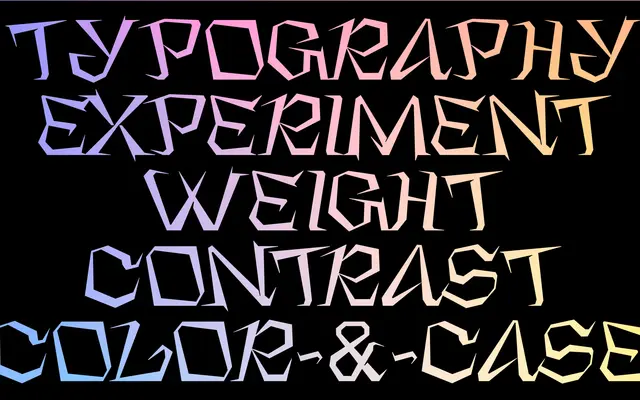
36DOPE
Power Type · Teguh Arief · 2023
An experimental display serif with unconventional construction, released by Teguh Arief in June 2023 as part of the 36 Days of Type event.
Designed around the 36 Days of Type 2023 challenge, the typeface features five weights from Super Light to Super Bold, available as a variable font. The serifs deviate deliberately from classical forms, giving each letterform an angular, expressive quality suited to short-form headline work. Coverage extends across 91 or more Latin-based languages via broad diacritic support.
Classified as display due to its unconventional, expressive serif construction intended solely for headlines and graphic work rather than running text. The serifs are deliberately non-traditional, making it an experimental variant rather than any classical serif category.